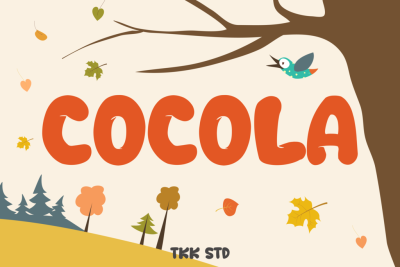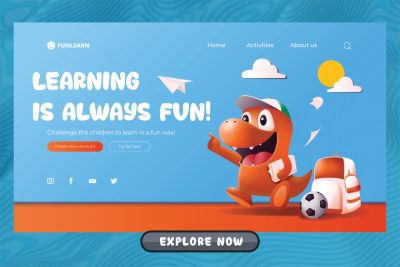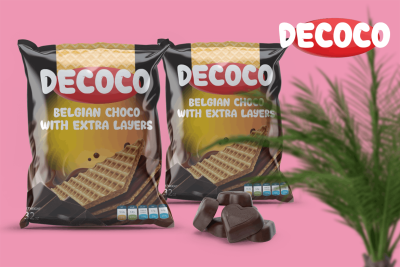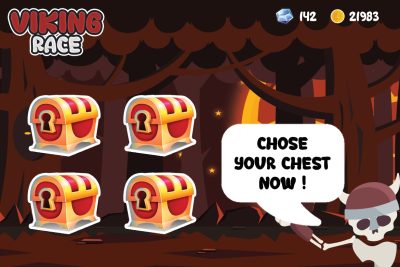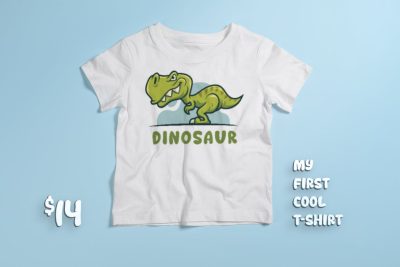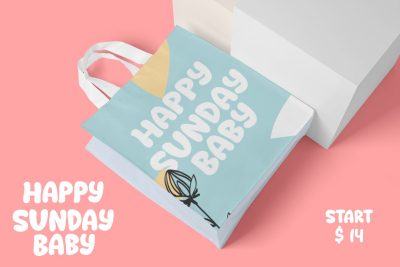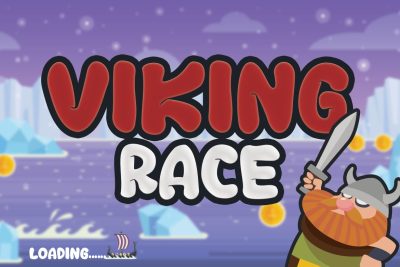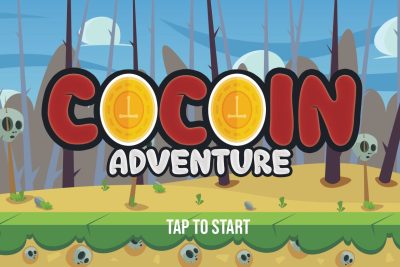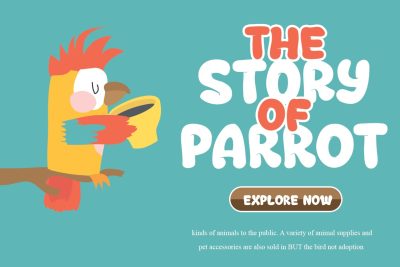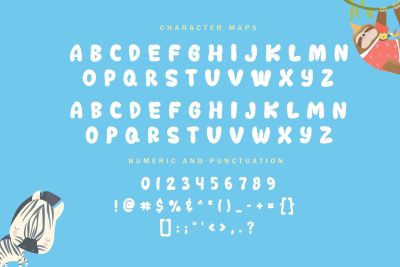
Bubble Font COCOLA is a vibrant and joyful font that brings a sense of playfulness to any design. With its smooth, rounded letters and bubbly shapes, COCOLA captures a lively, friendly feel. Each letter has a soft, rounded form that gives the font a hand-drawn, warm appearance, perfect for designs aimed at children. This typeface reflects the spirit of childhood, making it ideal for creating a happy, inviting atmosphere in any project.
COCOLA is not only playful but also highly readable. Its bold, thick letters stand out, ensuring clarity even at smaller sizes. This makes it an excellent choice for posters, packaging, and digital content. The fontโs easy-to-read, eye-catching design is perfect for brands targeting younger audiences. Whether youโre designing a book cover, an invitation, or educational materials, COCOLA adds color and joy, drawing kidsโ attention and creating a memorable visual experience.
With its smooth shapes and vibrant colors, COCOLA is a creative tool that enhances designs with a modern, friendly touch.
Bubble Font COCOLA is a top choice for designers and brands catering to children. Its fun, playful style is great for kid-oriented brands, such as toys, childrenโs clothing, and entertainment products. The font conveys happiness and warmth, making it ideal for logos, packaging, and marketing materials aimed at kids and families. COCOLAโs charming look works well for any project that needs a cheerful vibe, especially for products or campaigns targeting younger audiences.
Educators and childrenโs media creators will also find COCOLA useful. Its bold, colorful letters engage young viewers, making it perfect for childrenโs books, flashcards, and games. This readability is essential in keeping kidsโ attention, while the playful design makes learning materials more approachable.
Content creators on YouTube or Instagram can use COCOLA for thumbnails, banners, and posts, especially when targeting family or kid-friendly audiences. Its cheerful style creates a bright, welcoming brand image that resonates with young viewers and parents alike.
In summary, Bubble Font COCOLA is a versatile, playful font thatโs ideal for a wide range of kid-centered projects. Its friendly, easy-to-read design adds joy and color, making it perfect for any creative work targeting a young audience.